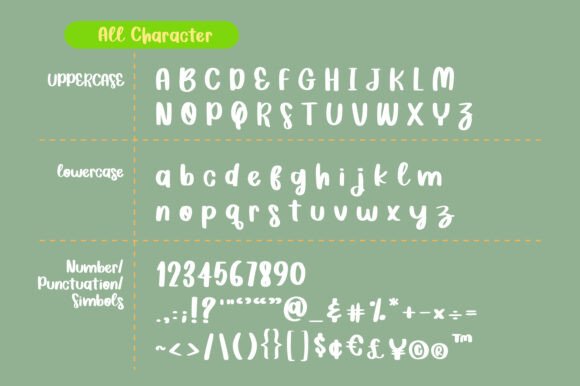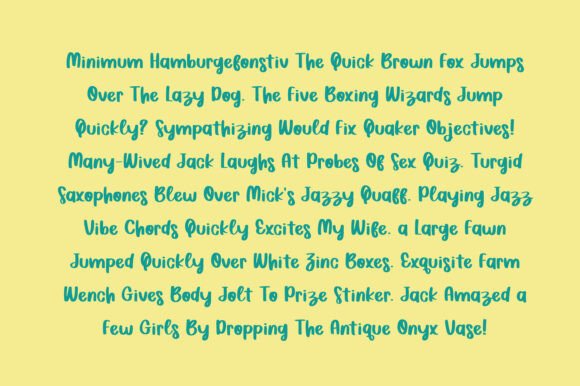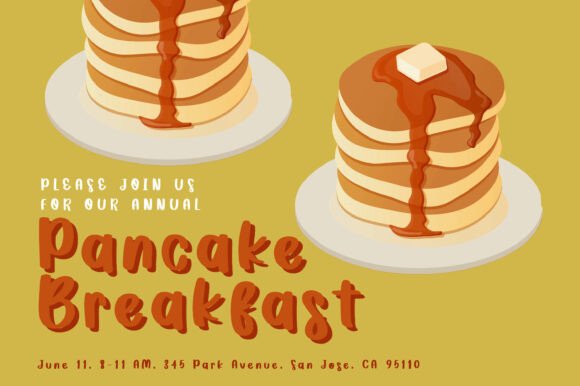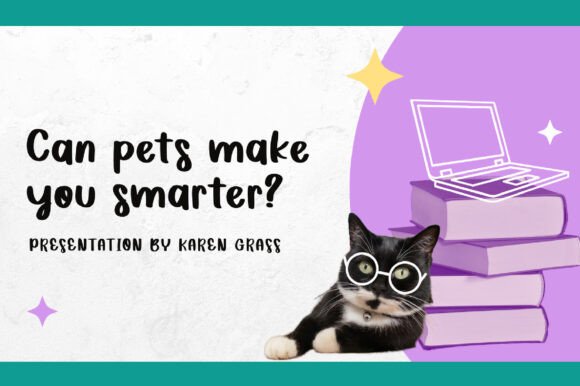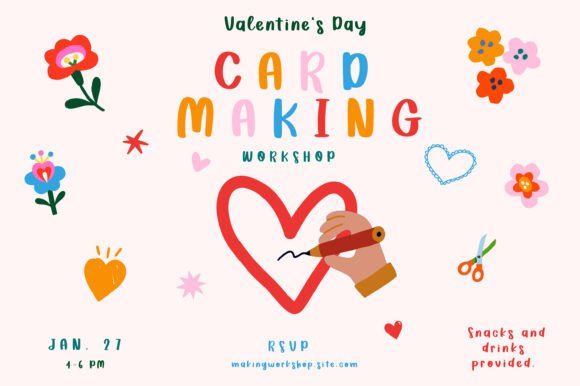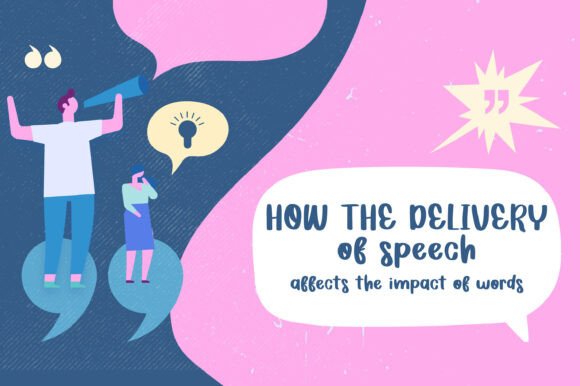
Introduction to Snackbox Font
Introducing SnackBox Font – a charming handwritten typeface that brings the perfect blend of simplicity and style to your digital universe.
Wrapped in cute handwritten aesthetics, SnackBox is designed to elevate the appeal of your digital notes, study plots, collage points, and more With its neat handwriting and sans serif style, it is an ideal choice for those who appreciate minimalist beauty in fonts.